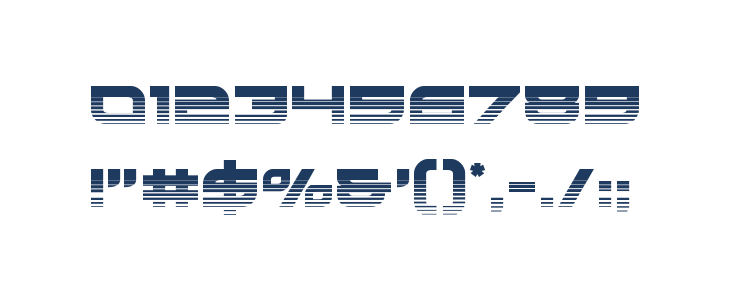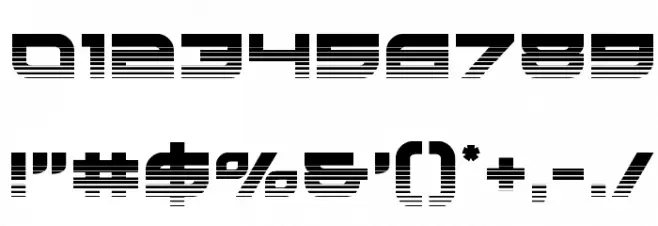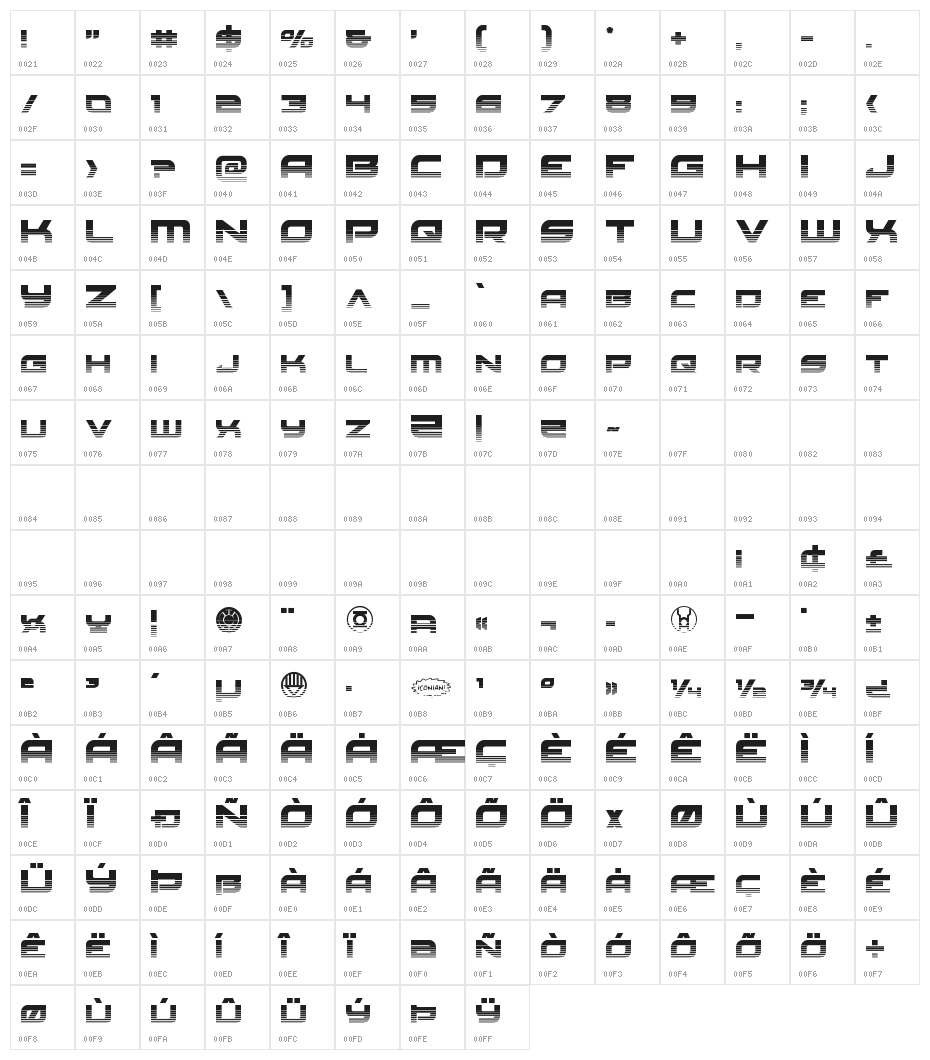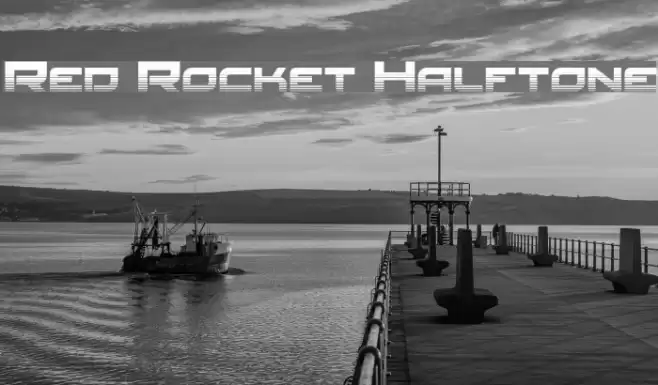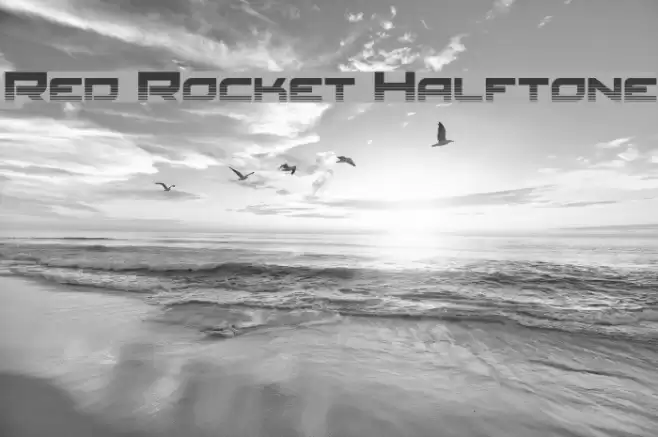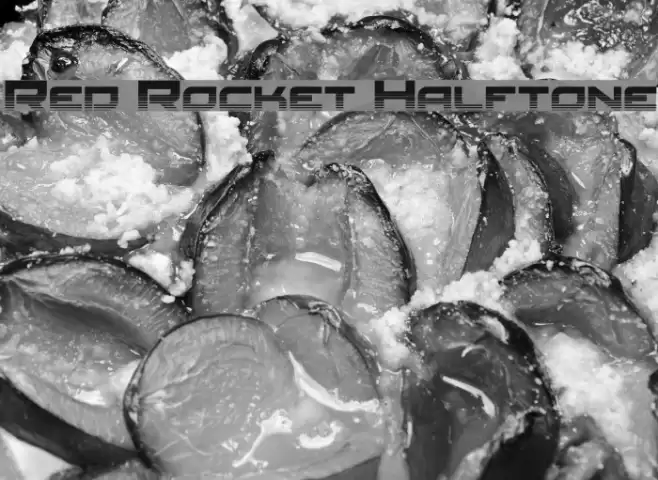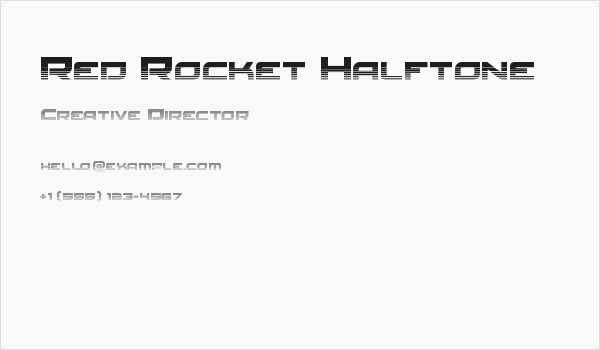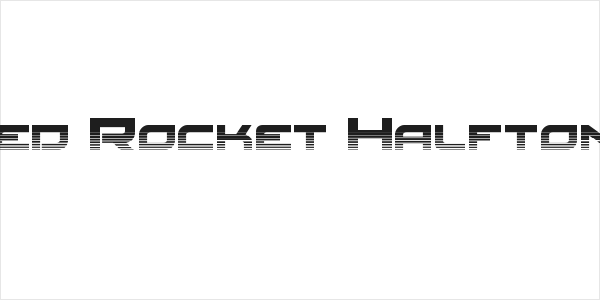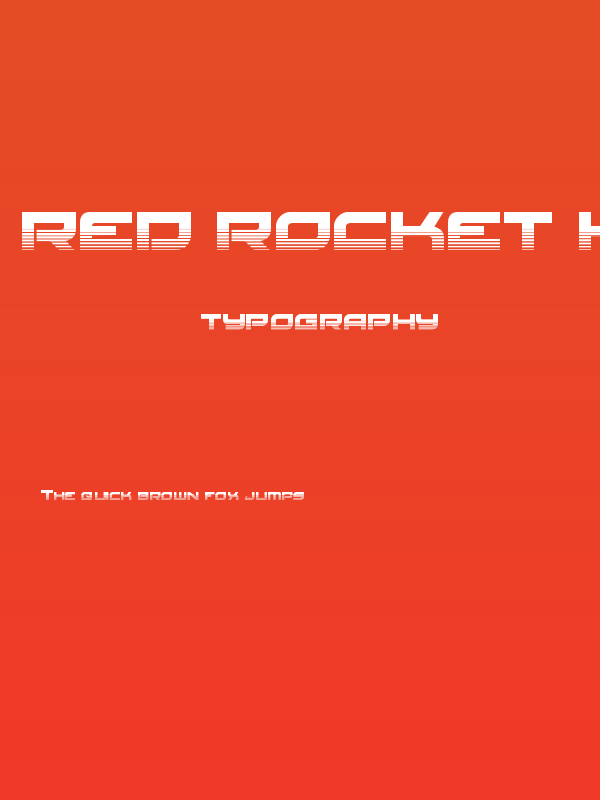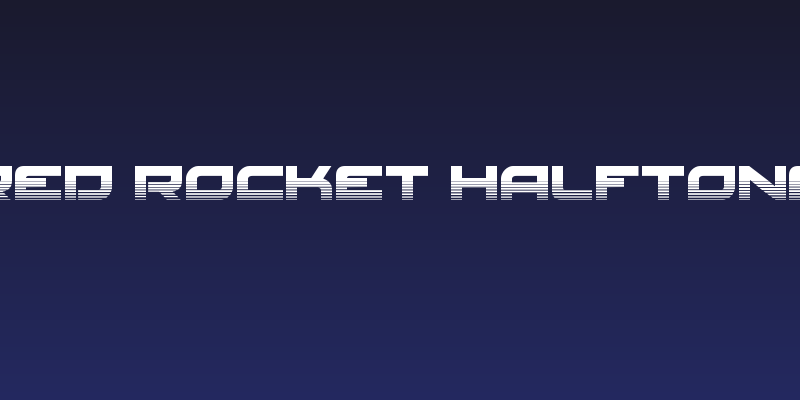
Red Rocket Halftone Font
Red Rocket Halftone Description
This font features a bold, futuristic design with a distinctive halftone effect. Each character is composed of horizontal lines that create a sense of movement and dynamism. The uppercase and lowercase letters maintain a consistent style, emphasizing geometric shapes and sharp angles. The numbers and special characters are equally bold, ensuring a cohesive look across all text elements. This font's unique style makes it stand out, ideal for projects that require a modern and edgy aesthetic.
| Overall Style | Futuristic, Modern |
| Proposed Projects | Ideal for sci-fi themed posters, video game titles, tech branding, and modern advertisements. |